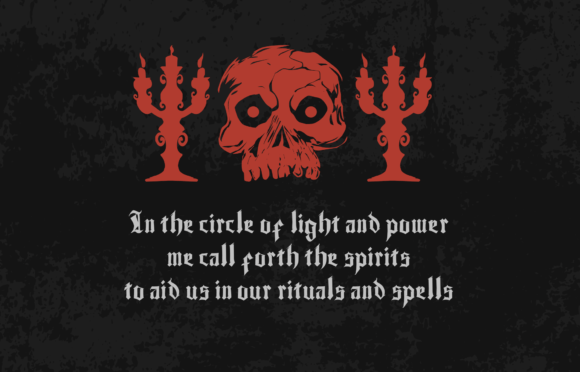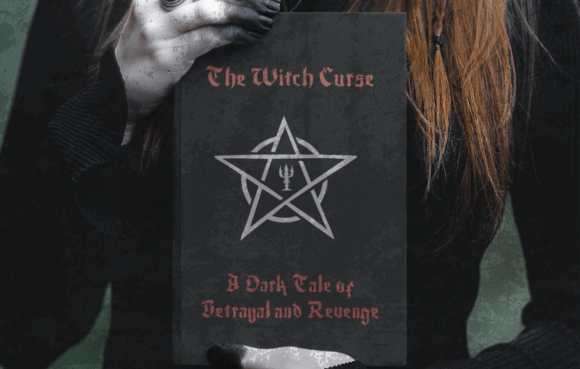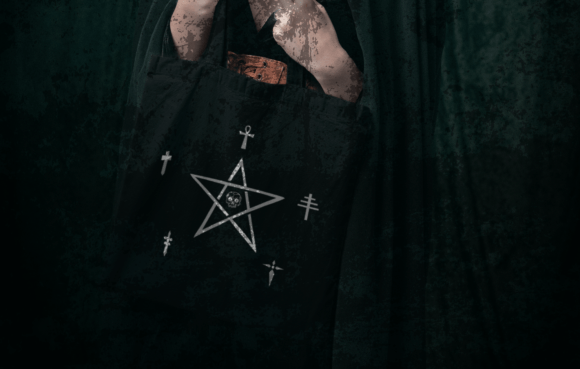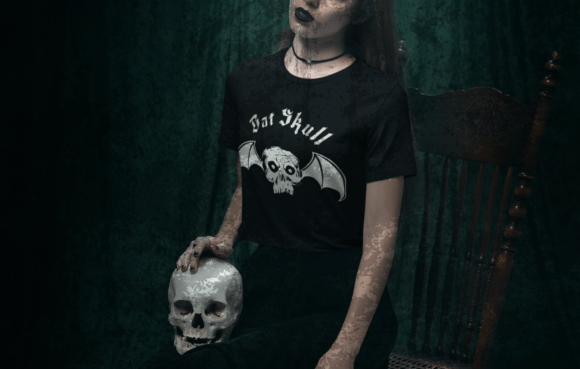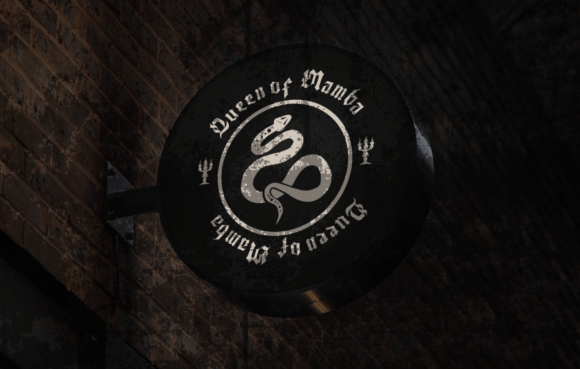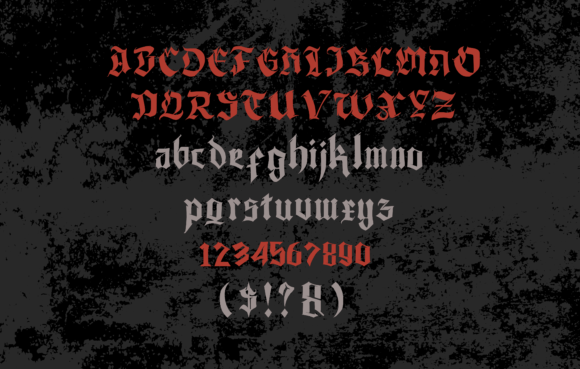
Unleash the Magic of Drude Fraktur Font: A Bold Blackletter Typeface for Designers and Crafters
Are you a designer or crafter looking for a font that exudes boldness and daringness? Look no further than the Drude Fraktur Font, a splendid blackletter typeface that is sure to add a touch of magic to your projects. This stunning font is perfect for product packaging, branding, witchy posters and stickers, or any other project that requires a statement piece of typography.
What is Drude Fraktur Font?
Drude Fraktur Font is a unique blackletter font that combines traditional Gothic elements with a modern twist. It features a range of elegant and intricate letterforms, along with a few extra Gothic clip art elements that add an extra layer of depth and interest. The result is a font that is both bold and beautiful, perfect for designers and crafters who want to make a statement.
Key Features of Drude Fraktur Font
- Bold and daring typography: Drude Fraktur Font is designed to make a statement, with bold and intricate letterforms that are sure to grab attention.
- Blackletter style: This font features a traditional blackletter style, with elegant and ornate letterforms that evoke a sense of history and tradition.
- Extra Gothic clip art elements: Drude Fraktur Font includes a range of extra Gothic clip art elements, such as borders, frames, and ornaments, that can be used to add an extra layer of interest to your projects.
- Versatile: This font is perfect for a wide range of projects, from product packaging and branding to posters, stickers, and more.
Uses for Drude Fraktur Font
Drude Fraktur Font is a versatile typeface that can be used for a wide range of projects, including:
- Product packaging: Add a touch of elegance and sophistication to your product packaging with Drude Fraktur Font.
- Branding: Use this font to create bold and eye-catching branding materials, such as logos, business cards, and letterheads.
- Witchy posters and stickers: Drude Fraktur Font is perfect for creating spooky and eye-catching posters and stickers for Halloween or other witchy-themed events.
- Invitations and greeting cards: This font is also great for creating invitations and greeting cards for special occasions, such as weddings, birthdays, and holidays.
Tips for Using Drude Fraktur Font
Here are a few tips for getting the most out of Drude Fraktur Font:
- Use it sparingly: Drude Fraktur Font is a bold and attention-grabbing typeface, so use it sparingly to avoid overwhelming your design.
- Pair it with a simple font: Pair Drude Fraktur Font with a simple font, such as a sans-serif or serif font, to create a striking contrast.
- Experiment with different colors: Drude Fraktur Font looks great in a range of colors, from bold and bright to muted and pastel.
Drude Fraktur Font is a stunning blackletter typeface that is sure to add a touch of magic to your projects. With its bold and daring typography, extra Gothic clip art elements, and versatility, this font is perfect for designers and crafters who want to make a statement. Whether you’re creating product packaging, branding materials, or witchy posters and stickers, Drude Fraktur Font is the perfect choice.